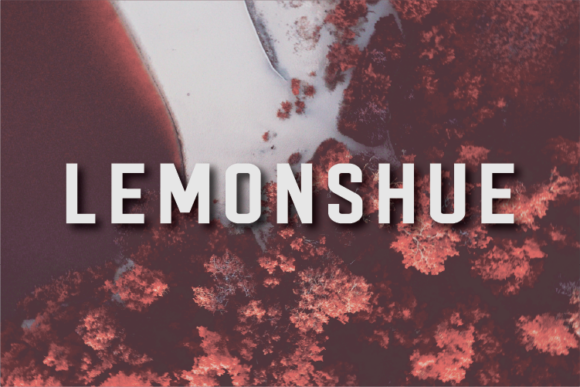
Introducing Lemonshue Font, the Bold and Brilliant Sans Serif Masterpiece!
Captivate your audience with the striking presence of Lemonshue Font, a sans serif font family that commands attention with its bold, thick strokes and clean, modern lines. Created by the talented A Christie, this font is a typographic wonder that's guaranteed to make your designs shine.
Lemonshue Font is not just another font; it's a versatile chameleon that adapts seamlessly to a vast spectrum of projects. Whether you're crafting stunning logos, eye-catching posters, or captivating social media graphics, Lemonshue Font will elevate your designs to new heights. Its strong character and distinct personality will leave an unforgettable mark on your audience, ensuring that your message resonates with power and clarity.
Step into the world of Lemonshue Font and let your creativity flourish. This font family is a blank canvas waiting to be transformed into a masterpiece. Its thick, bold letters exude a sense of strength and confidence, while its clean lines create a modern, minimalist aesthetic that's perfect for contemporary designs.
With Lemonshue Font, you'll never be short of inspiration. Its versatility knows no bounds, making it the perfect choice for a wide range of projects. Unleash your imagination and let Lemonshue Font take you on a creative journey where your designs come alive with personality and impact.
Experience the transformative power of Lemonshue Font and witness how it instantly elevates your designs. Its bold strokes and clean lines will grab attention, leaving a lasting impression that will set your work apart from the ordinary.
Lemonshue Font is more than just a font; it's a statement of style and creativity. Embrace its bold personality and let it infuse your designs with a touch of sophistication and elegance. Its timeless appeal will ensure that your creations stand the test of time, captivating audiences with their enduring beauty and charm.